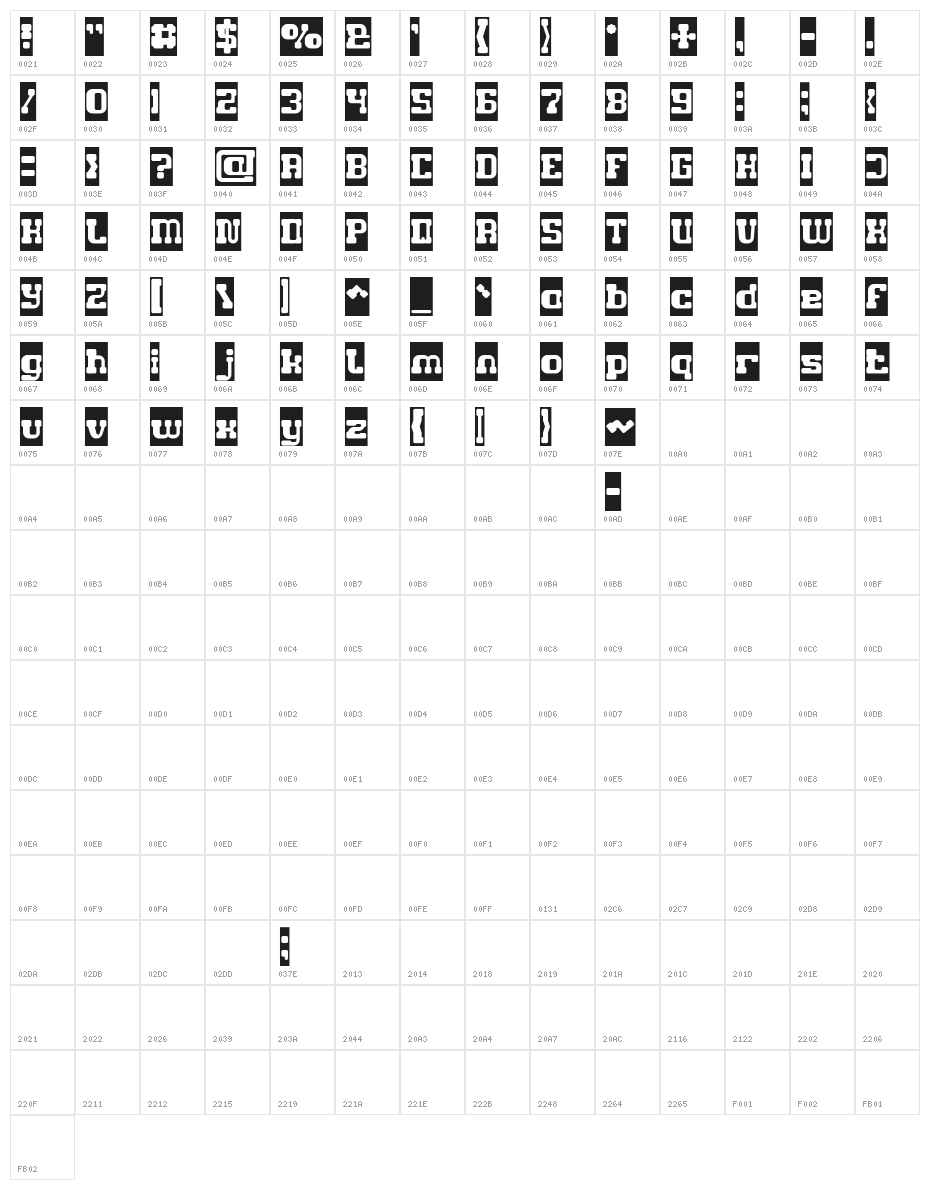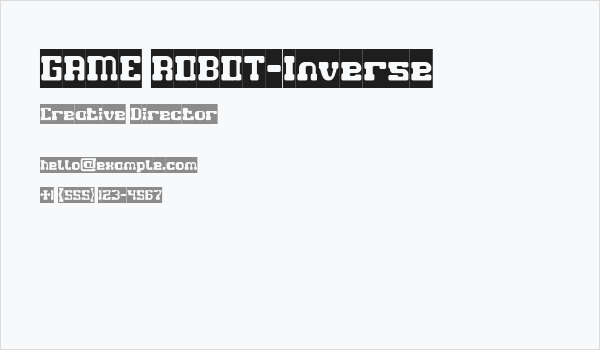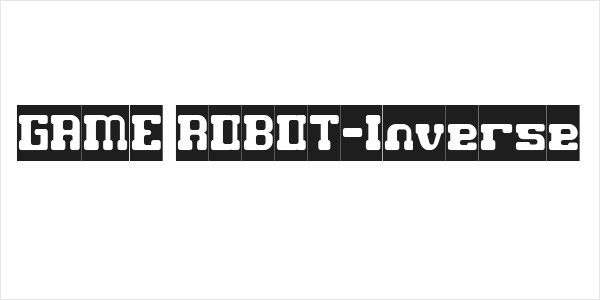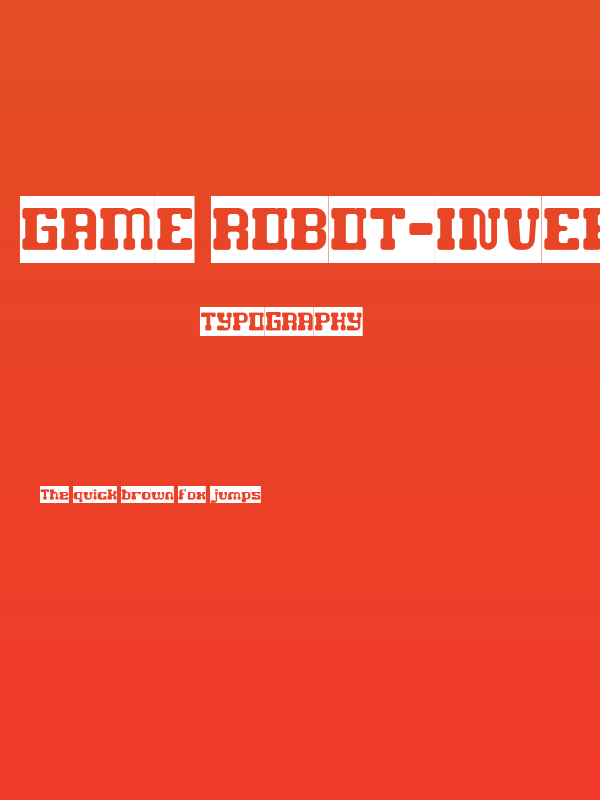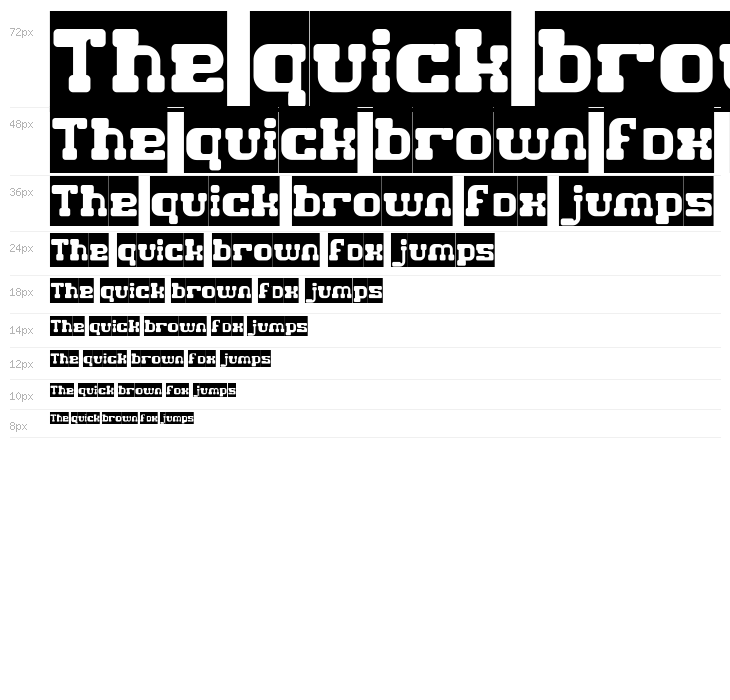
GAME ROBOT-Inverse Font
GAME ROBOT-Inverse Description
This font features a bold, geometric design with a strong, industrial feel. The characters are blocky and robust, with rounded edges that soften the overall appearance. The uppercase and lowercase letters maintain a consistent width, giving the font a uniform look. The numerals and special characters follow the same design principles, ensuring cohesion across all elements. The font's unique style is reminiscent of retro-futuristic aesthetics, making it suitable for projects that require a bold and distinctive typeface.
| Overall Style | Retro-Futuristic |
| Proposed Projects | Ideal for video game titles, tech-themed posters, branding for tech companies, and any project requiring a bold, standout typeface. |